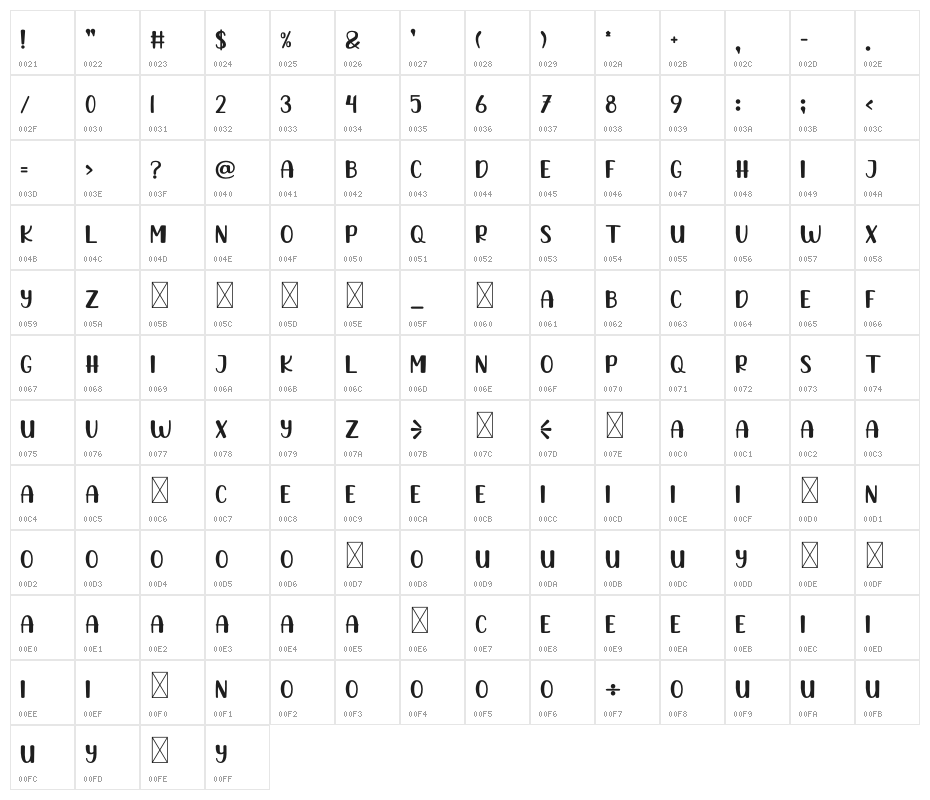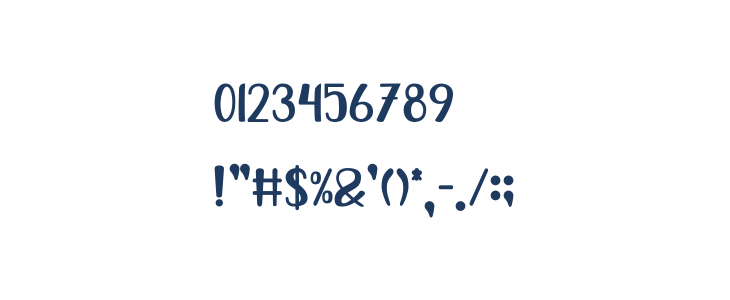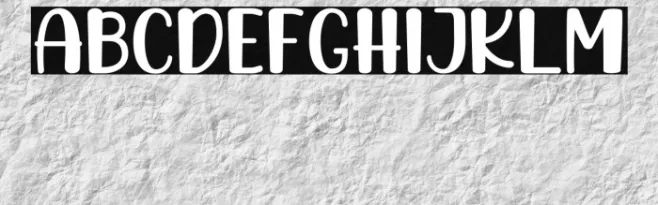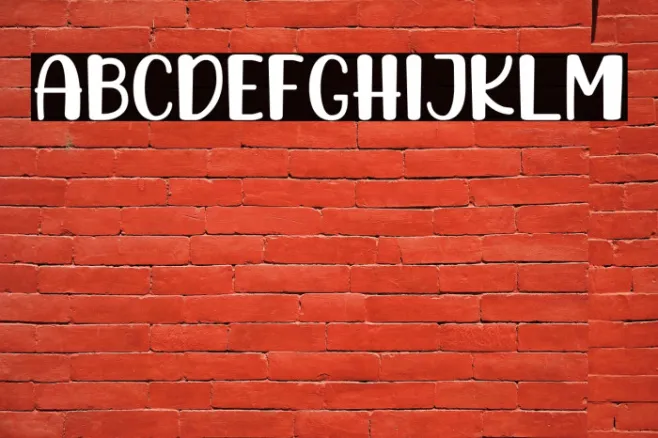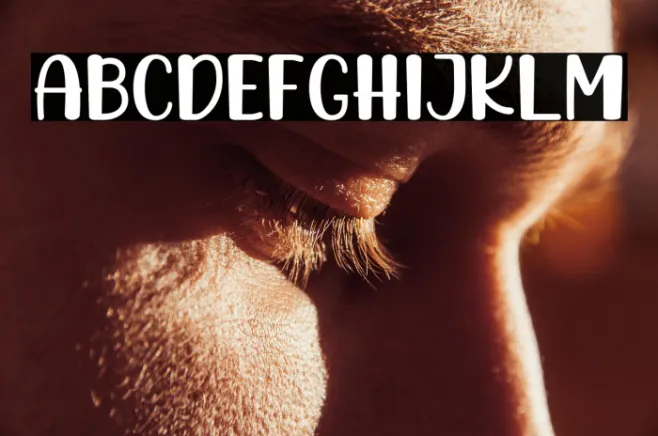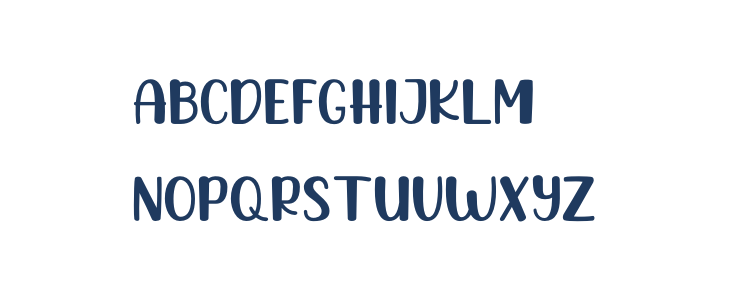
Honey Font
Honey Description
This font features a playful and bold style with rounded edges and a slightly irregular baseline, giving it a whimsical and friendly appearance. The uppercase letters are uniform in height, while the lowercase letters maintain a consistent flow with a slight slant, enhancing its casual look. The numerals are clear and easy to read, matching the overall style of the alphabet. Special characters are well-integrated, maintaining the font's cohesive design. The strokes are thick, providing a strong presence, yet the rounded terminals soften the overall feel, making it approachable and versatile.
| Proposed Projects | Ideal for children's books, playful branding, greeting cards, and casual invitations. |